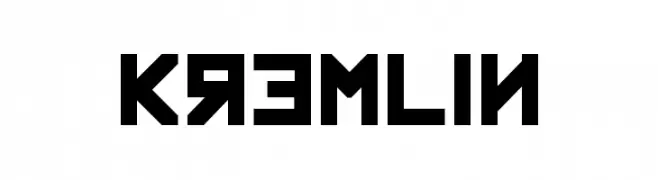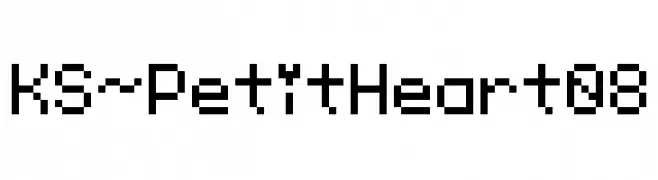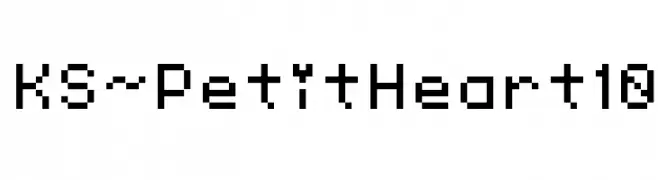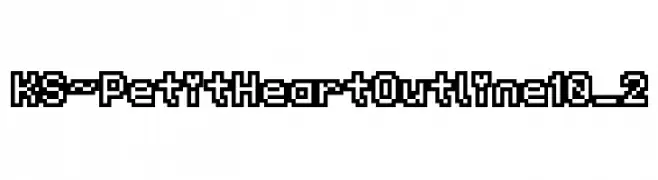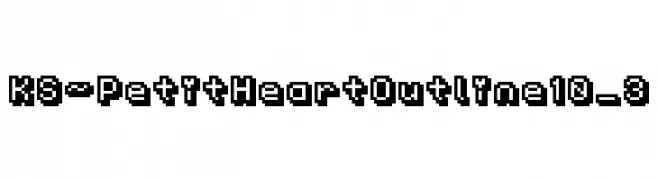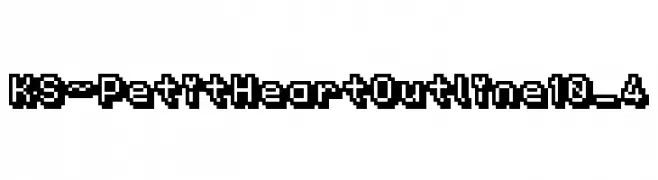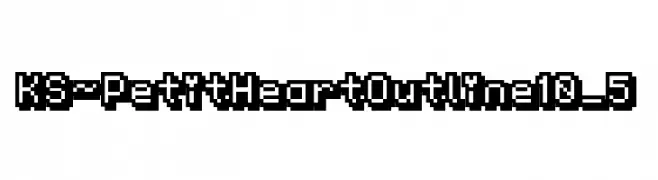
A bold, pixelated font with a retro, 8-bit video game aesthetic.
A bold, pixelated font with a playful, retro digital aesthetic.
A futuristic, geometric font with blocky, angular letterforms.
A bold, angular font with a digital, futuristic style.
A bold, angular font with a modern, edgy style.
A bold, italicized font with sharp, angular lines and a futuristic style.
Bold, angular, and italic with a futuristic, pixelated design.
A bold, futuristic font with angular cuts and strong geometric shapes.
A distressed, grungy font with chaotic, worn letterforms.
A modern, dynamic font with parallel line patterns creating a sense of movement.
A modern, multi-line font with a dynamic and futuristic style.
A playful and bold font with irregular, dynamic shapes and whimsical character designs.
A bold, geometric font with strong vertical lines and minimal curves.
A playful, handwritten font with bold, rounded strokes and a casual style.
A playful and eclectic font with varied styles and textures.
A playful, eclectic font with varied decorative characters.
A modern, rounded sans-serif font with smooth curves and balanced spacing.
A bold, rounded font with a futuristic and modern aesthetic.
A modern, condensed sans-serif typeface with a clean and professional look.
A modern, bold, condensed sans-serif typeface with a clean and balanced design.
A bold, italic, and condensed sans-serif font with a modern and sleek appearance.
A modern, condensed, and italic sans-serif font with a sleek design.
A modern, sans-serif typeface with clean lines and balanced spacing.